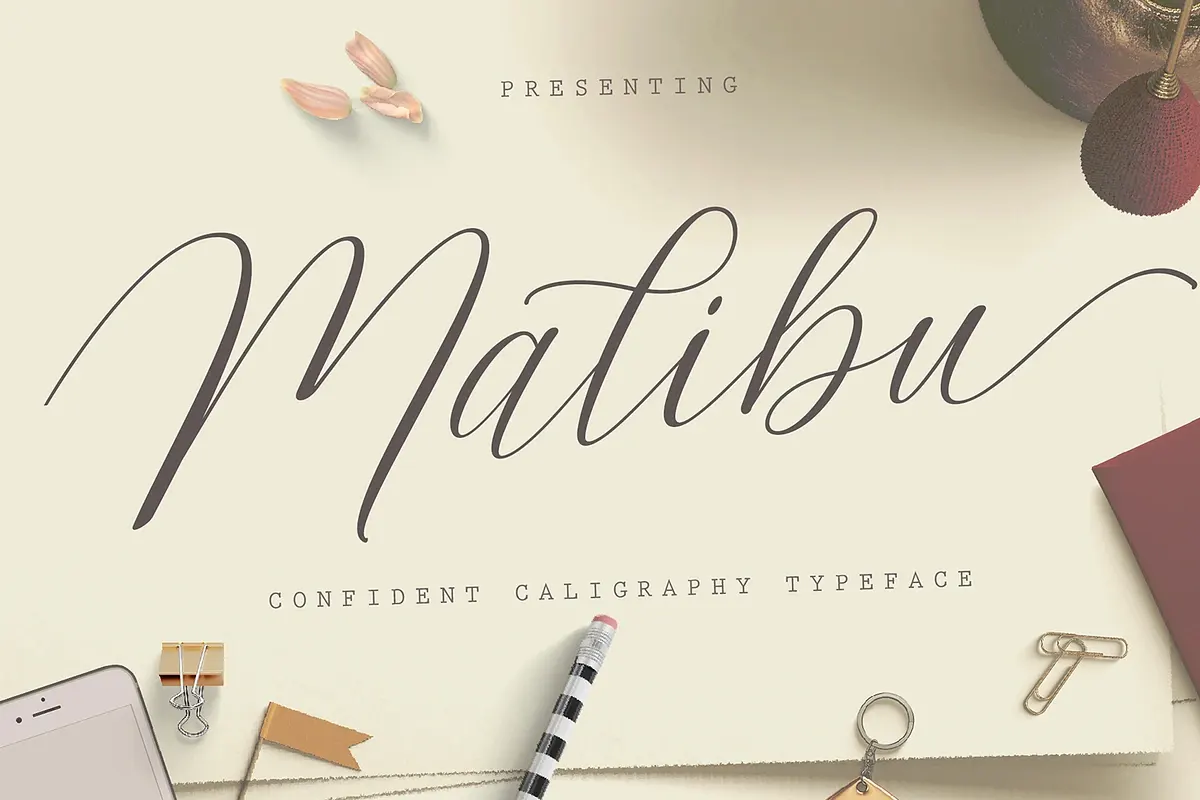
Malibu Script Font Free Download is a breezy and elegant handwritten typeface that captures the relaxed charm of coastal living with a touch of modern sophistication. With its smooth curves, fluid strokes, and natural rhythm, Malibu is perfect for wedding invitations, beauty branding, social media content, logo designs, and lifestyle blog graphics.
Designed to emulate authentic brush pen handwriting, Malibu Script Font Free Download adds warmth, personality, and a stylish flair to any project. It’s especially great for feminine aesthetics, summer-themed visuals, or brands that want to radiate effortless elegance.
Malibu pairs beautifully with sans-serif or serif fonts to create balanced and visually engaging designs. Whether you're designing for Instagram, crafting stationery, or creating a boutique logo, this script font gives your typography a soft, flowing touch that feels both personal and polished.